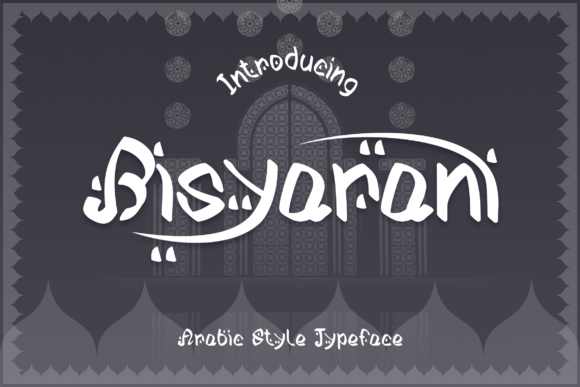
Bisyarani Font: Elevate Your Designs with Elegant Arabic Calligraphy
In the realm of typography, few fonts manage to capture the essence of cultural heritage and elegance as effectively as the Bisyarani Font. This unique Arabic-style display font has been making waves in the design world with its intricate calligraphic strokes and ornate details, offering a sophisticated aesthetic that is hard to resist. Inspired by traditional Arabic typography, Bisyarani Font brings an unparalleled level of elegance and cultural richness to any design project, making it a go-to choice for designers looking to infuse their work with a touch of authenticity and beauty.
The Inspiration Behind Bisyarani Font
The Bisyarani Font draws its inspiration from the rich tradition of Arabic calligraphy, a form of art that has been revered for centuries. Arabic calligraphy is not just a method of writing; it’s an art form that embodies the spirit of the Arabic language and culture. With its roots in the ancient world, Arabic calligraphy has evolved over the centuries, branching out into various styles, each with its unique characteristics and beauty. The Bisyarani Font is a modern interpretation of these traditional styles, capturing the essence of Arabic calligraphy and making it accessible for contemporary design projects.
Characteristics of Bisyarani Font
The Bisyarani Font is characterized by its intricate calligraphic strokes and ornate details, which set it apart from more conventional fonts. Its design is deeply rooted in traditional Arabic typography, yet it boasts a modern appeal that makes it versatile for a wide range of applications. Some of the key characteristics of the Bisyarani Font include:
- Intricate Calligraphic Strokes: The font features complex and beautiful calligraphic strokes that reflect the artistry of Arabic calligraphy.
- Ornate Details: Each letter in the Bisyarani Font is adorned with ornate details, adding to its elegance and charm.
- Elegant and Cultural Aesthetic: The font exudes an air of sophistication and cultural richness, making it ideal for designs that require a touch of elegance.
- Versatility: Despite its traditional inspiration, the Bisyarani Font is surprisingly versatile, suitable for various design projects from posters and invitations to branding and advertising.
Applications of Bisyarani Font
The Bisyarani Font’s unique blend of traditional Arabic calligraphy and modern design makes it suitable for a variety of applications. Whether you’re looking to add an elegant touch to your wedding invitations, create a memorable brand identity, or simply want to stand out with your advertising materials, the Bisyarani Font can help you achieve your goals. Some of the ideal applications for the Bisyarani Font include:
- Posters: Add a touch of elegance and sophistication to your posters with the Bisyarani Font, making them stand out and leave a lasting impression.
- Invitations: Whether it’s a wedding, a formal event, or a corporate gathering, the Bisyarani Font can elevate your invitations, setting the tone for an elegant and memorable occasion.
- Branding Projects: For businesses looking to establish a strong brand identity, the Bisyarani Font offers a unique and sophisticated aesthetic that can help differentiate your brand from competitors.
- Advertising: Make your advertising materials more compelling and engaging with the Bisyarani Font, which can add an element of cultural richness and elegance to your campaigns.
Why Choose Bisyarani Font?
In a world where design trends are constantly evolving, the Bisyarani Font stands out for its timeless elegance and cultural significance. Choosing the Bisyarani Font for your design projects comes with several advantages:
- Unique Aesthetic: The Bisyarani Font offers a distinctive and sophisticated aesthetic that can set your designs apart.
- Cultural Richness: By incorporating elements of traditional Arabic calligraphy, the Bisyarani Font adds a layer of cultural richness to your designs.
- Versatility: The font’s versatility makes it suitable for a wide range of design projects, from digital content to print materials.
- Elegance: The Bisyarani Font brings an unparalleled level of elegance to any design, making it ideal for projects that require a sophisticated look.
How to Use Bisyarani Font Effectively
To make the most of the Bisyarani Font, it’s essential to use it effectively in your design projects. Here are some tips for incorporating the Bisyarani Font into your designs:
- Pair with Complementary Fonts: When using the Bisyarani Font, consider pairing it with simpler fonts to create contrast and enhance readability.
- Consider the Context: Given its cultural and aesthetic qualities, the Bisyarani Font is particularly suited for projects that aim to convey elegance, sophistication, and cultural appreciation.
- Adjust Size and Color: Experiment with different sizes and colors to find the perfect combination that highlights the beauty of the Bisyarani Font in your designs.
- Use for Headlines and Titles: The Bisyarani Font is best used for headlines, titles, and short texts where its intricate details and elegance can be fully appreciated.
- Is Bisyarani Font suitable for digital use? Yes, the Bisyarani Font is versatile and can be used in both print and digital media, making it suitable for a wide range of design projects.